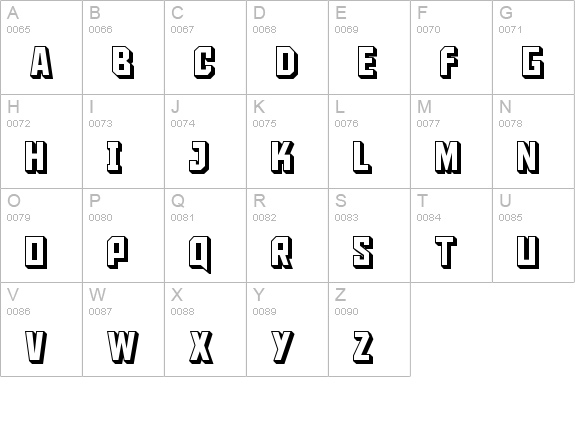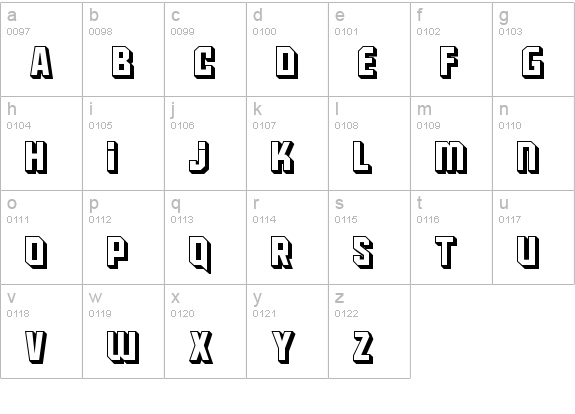
Maus font is a modern and stylish typeface that exudes elegance and sophistication. With its sleek lines and contemporary design, Maus font is perfect for creating eye-catching graphics and designs. This versatile font is suitable for a wide range of projects, from branding and logos to invitations and social media posts. The best part about Maus font is that it is completely free to download at FontsMarket.com. This means that you can access this high-quality font without any cost, making it a valuable addition to your font collection. Whether you are a professional designer or a hobbyist looking to elevate your creations, Maus font is a must-have font that will surely impress. Download Maus font today and unleash your creativity with this stunning typeface.